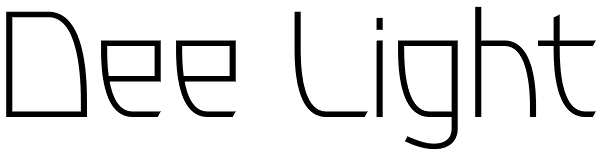
Dee
The Dee font family started from letter "d" and "e" followed by the rest of the letters. "Dee" is Thai word mean "Good" in English that is the source of this font name. The Dee XTS style has alternate stroke ends relative to the Dee XT style. It is...